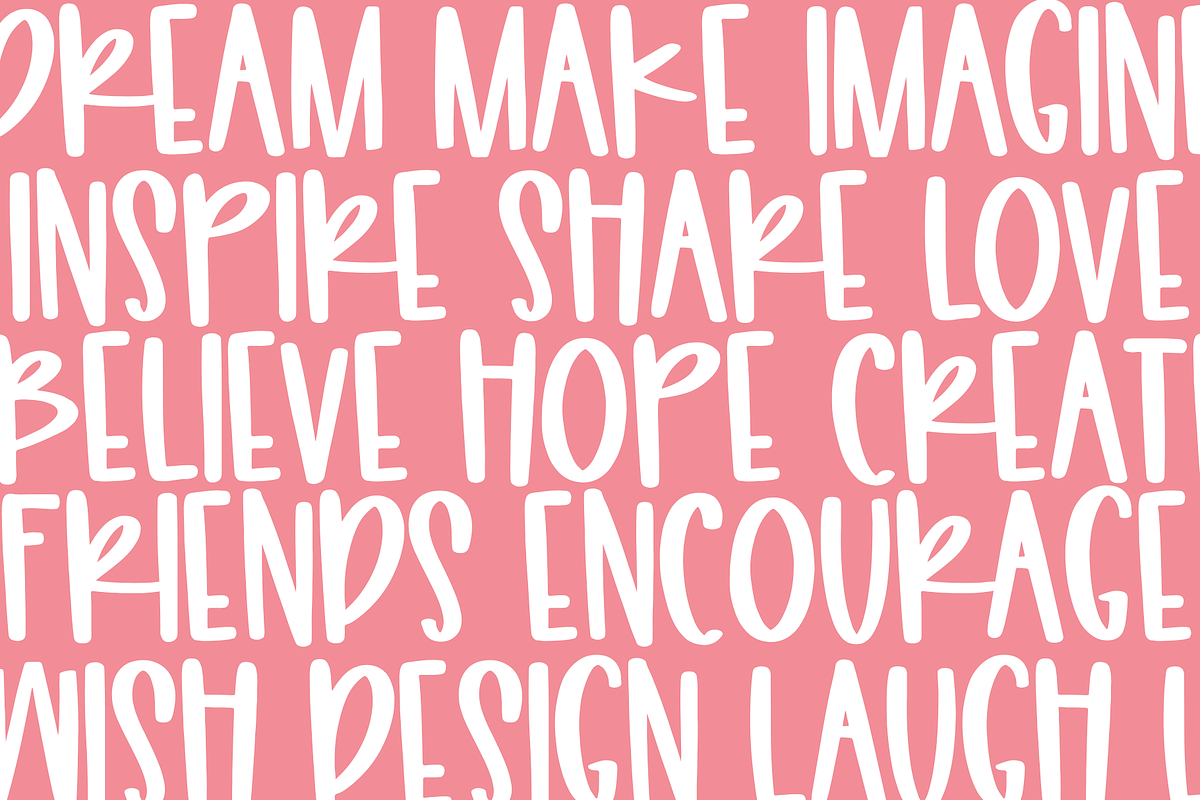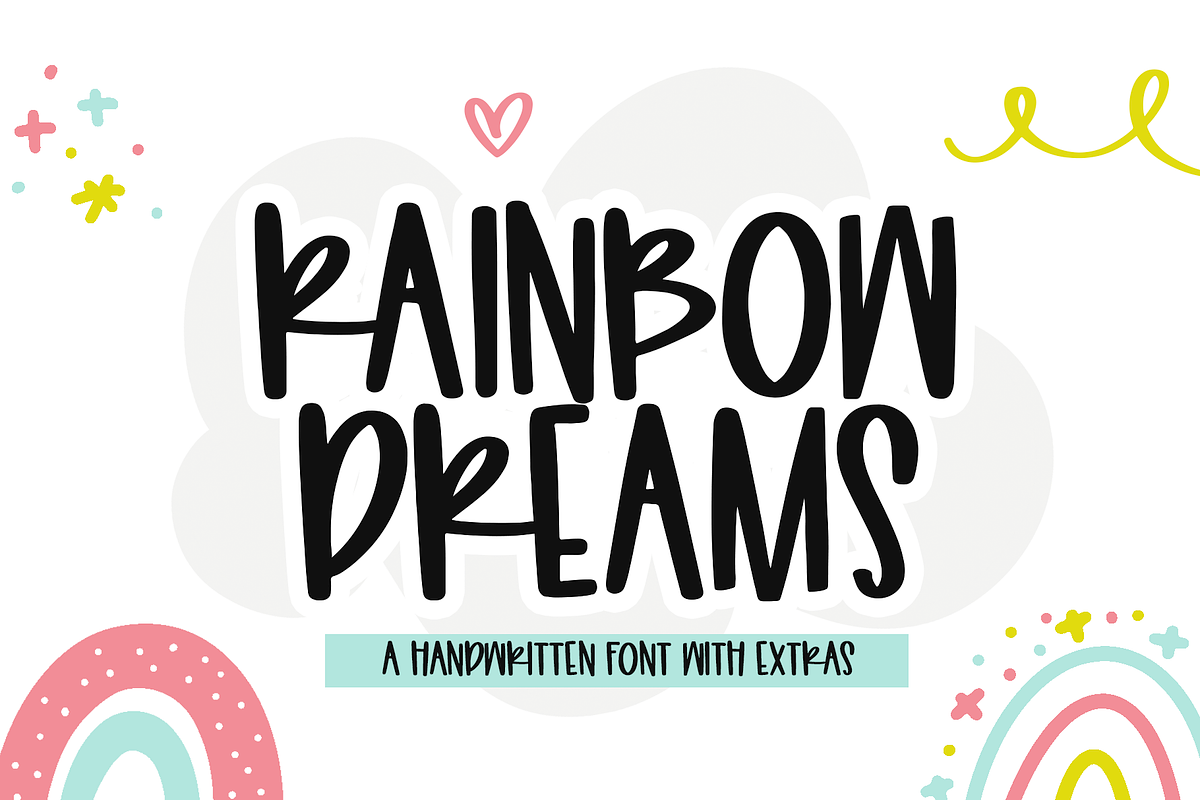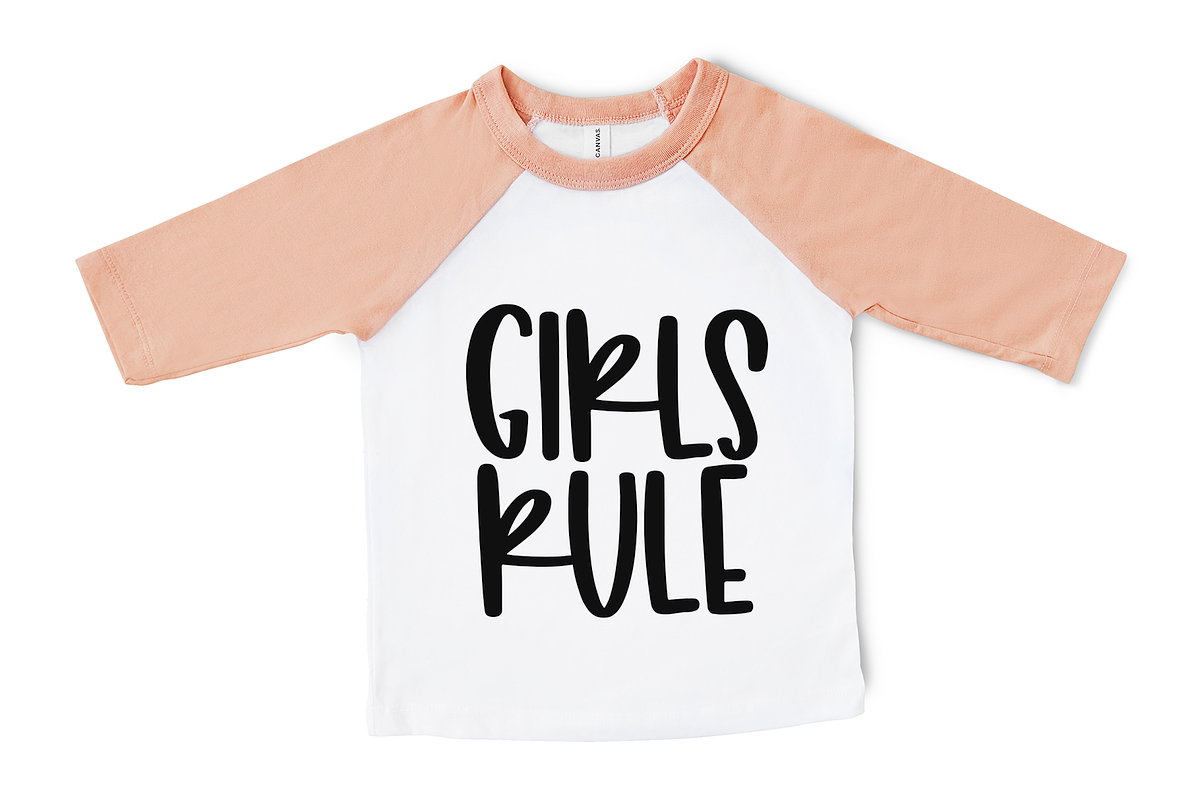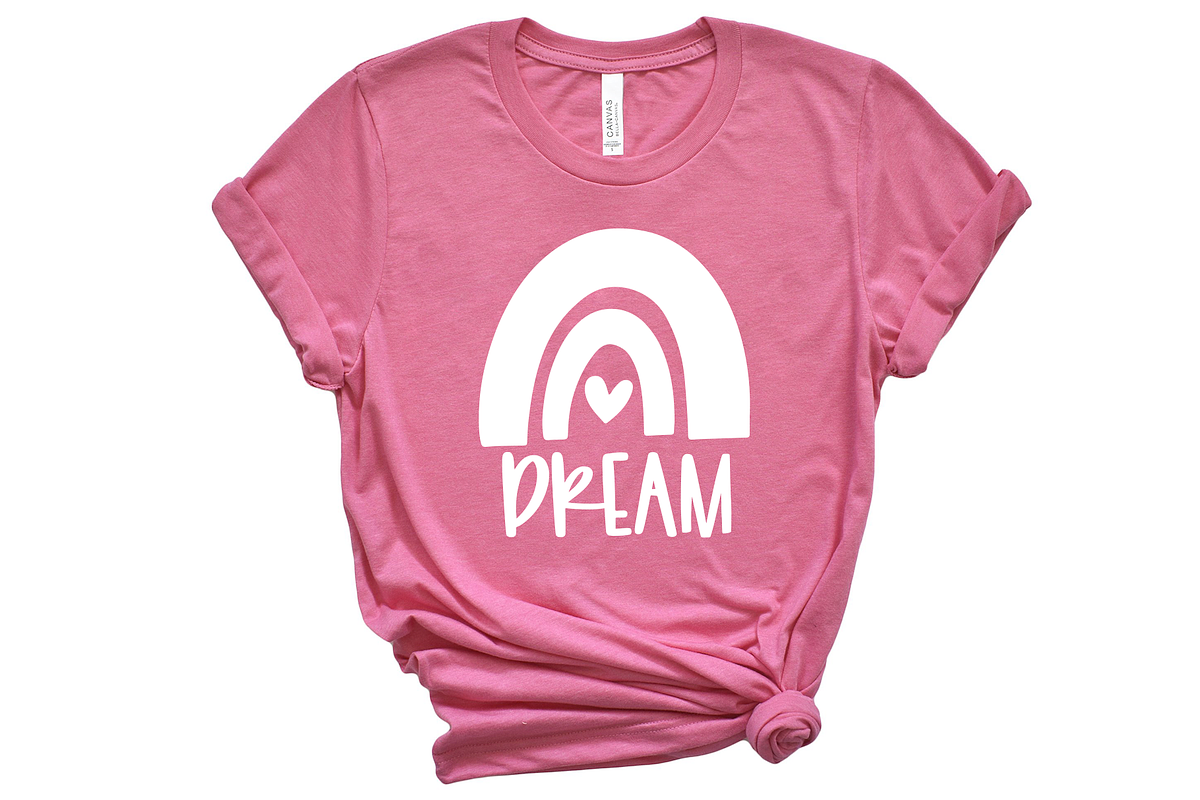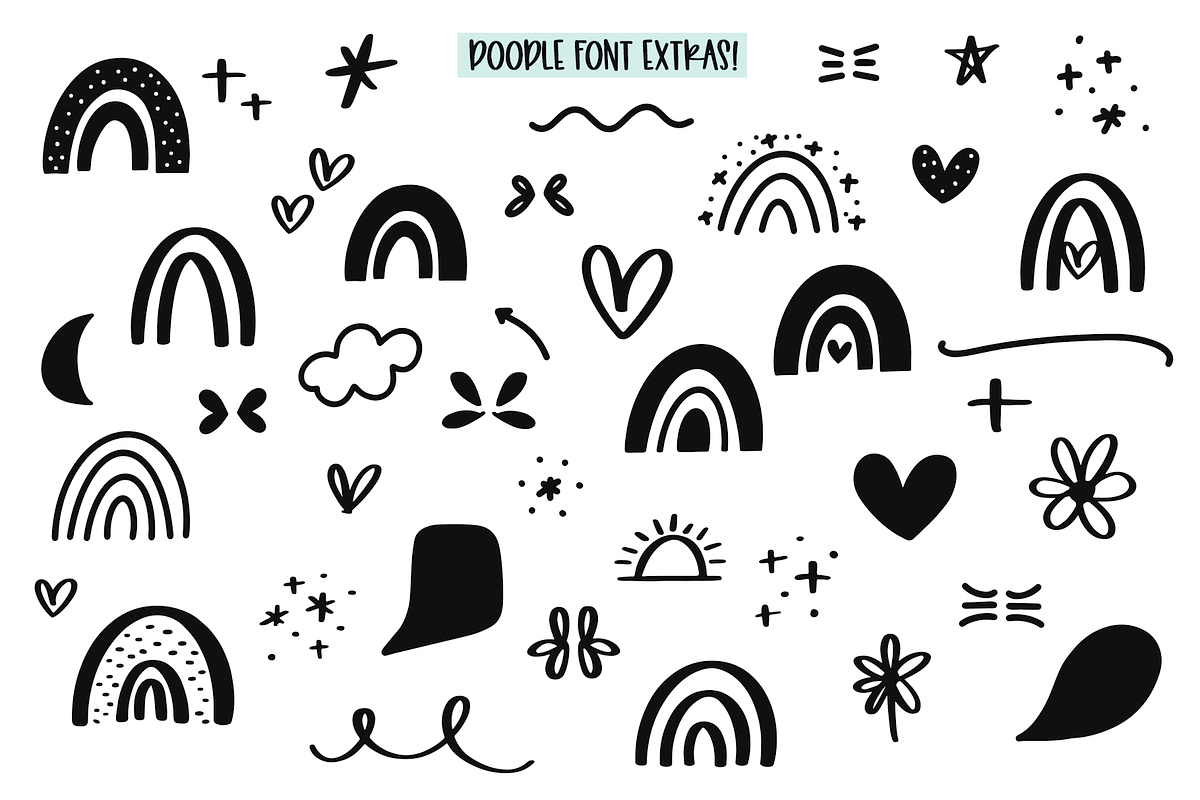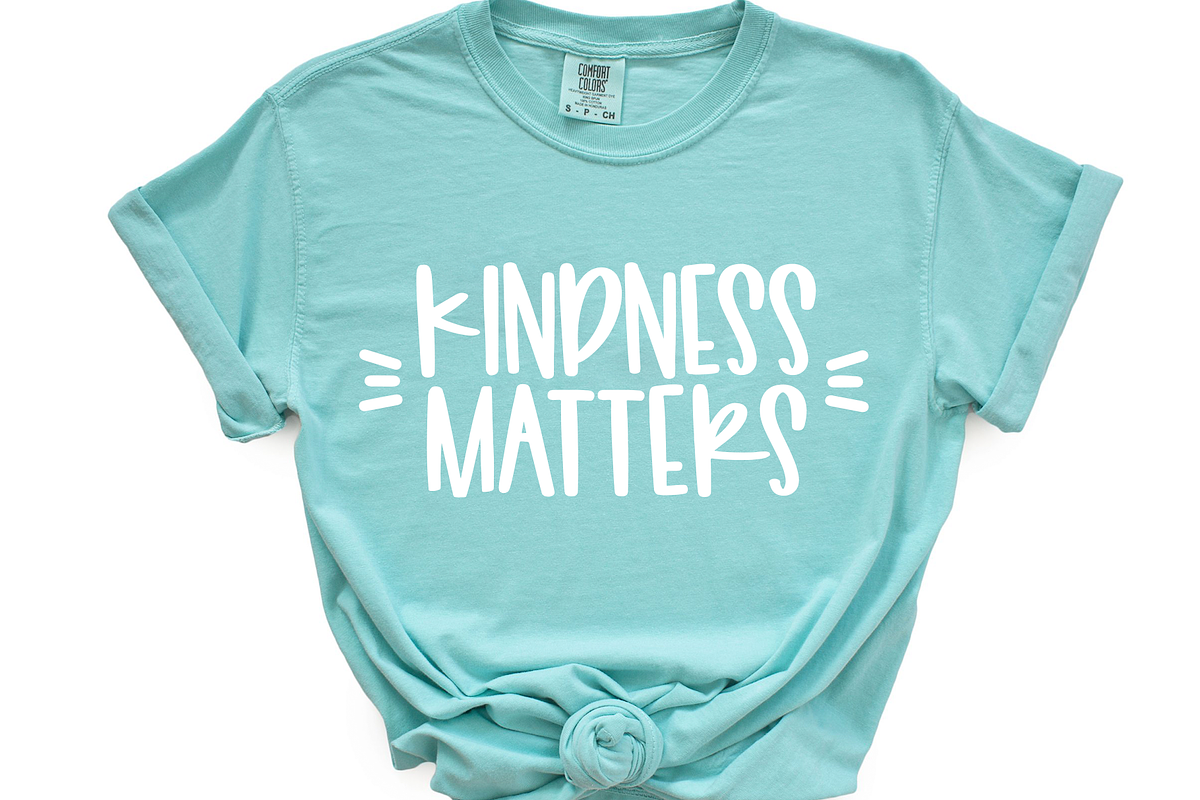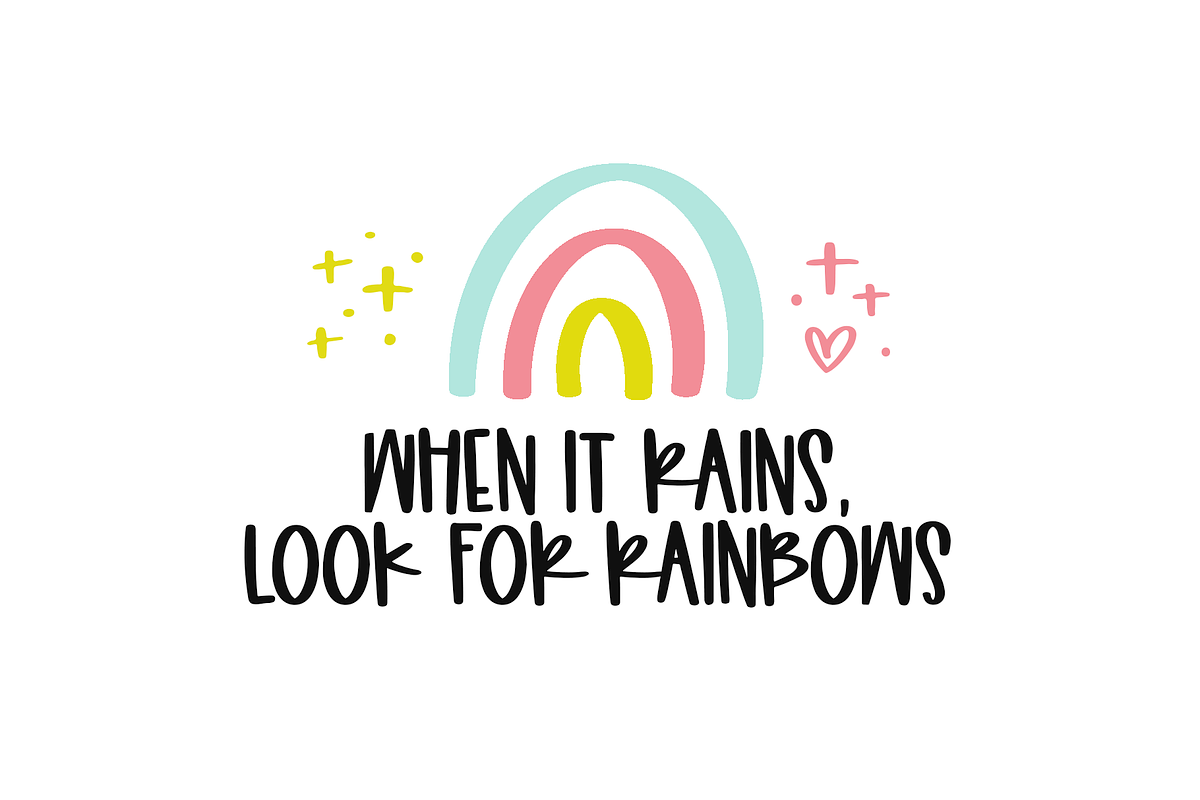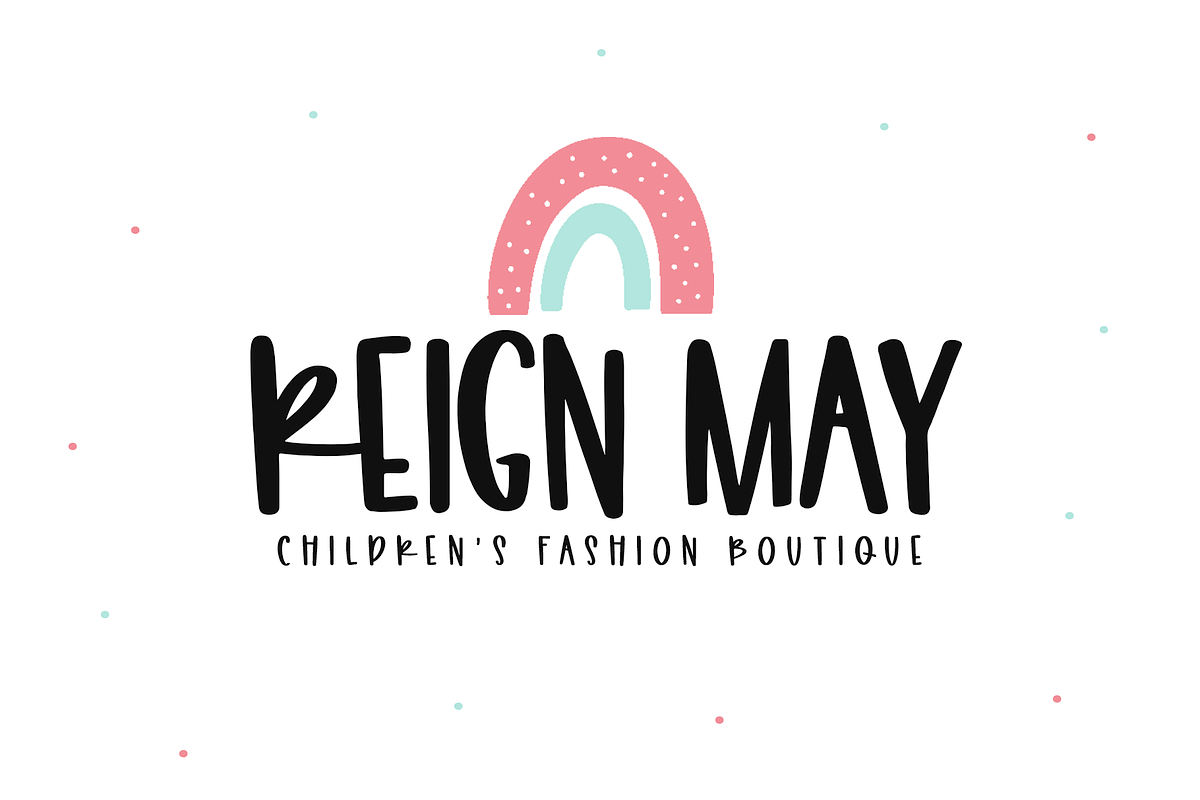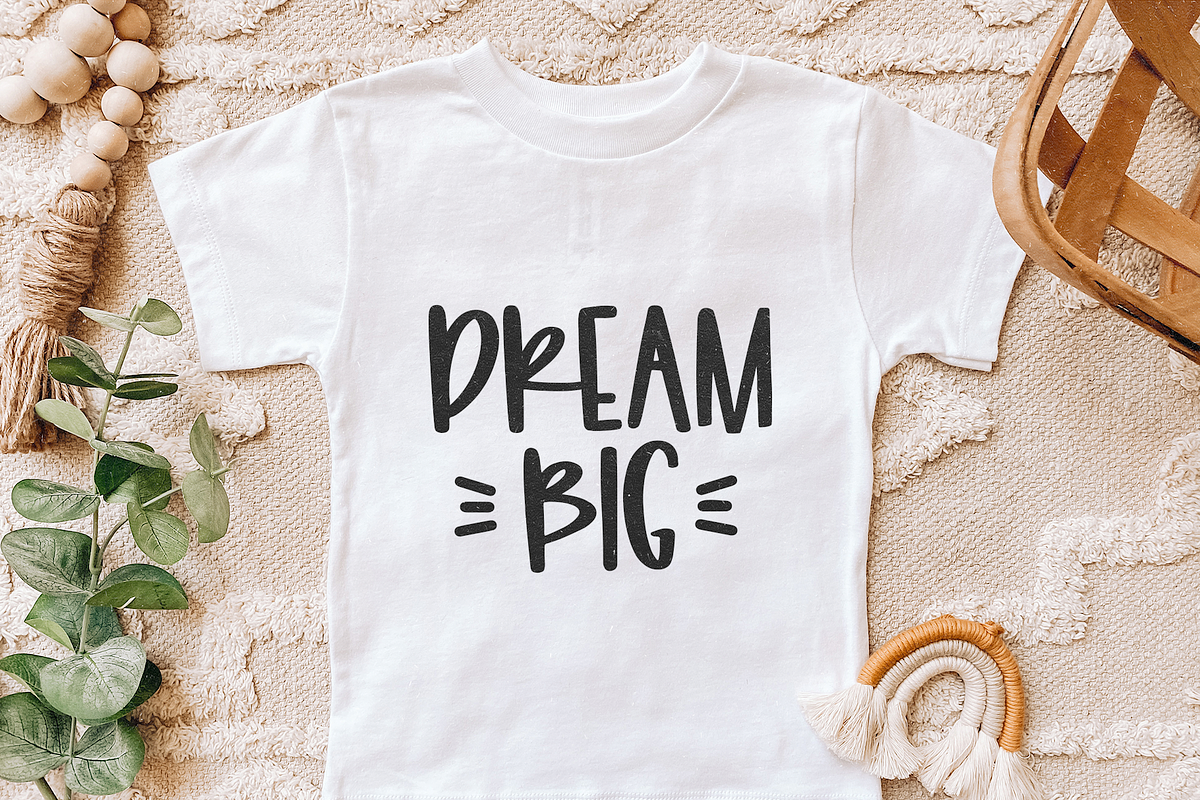
Rainbow Dreams | Font with Extras
RAINBOW DREAMS FONT A bouncy handwritten font with extra font doodles!
Includes a doodle font - Rainbow Dreams Extras - with 52 decorative doodles! Install the font and use characters A-Z / a-z to access the doodles.
This font is perfect for quotes, branding, ornaments, shirts, mugs, headings, blogs, logos, invitations and more!